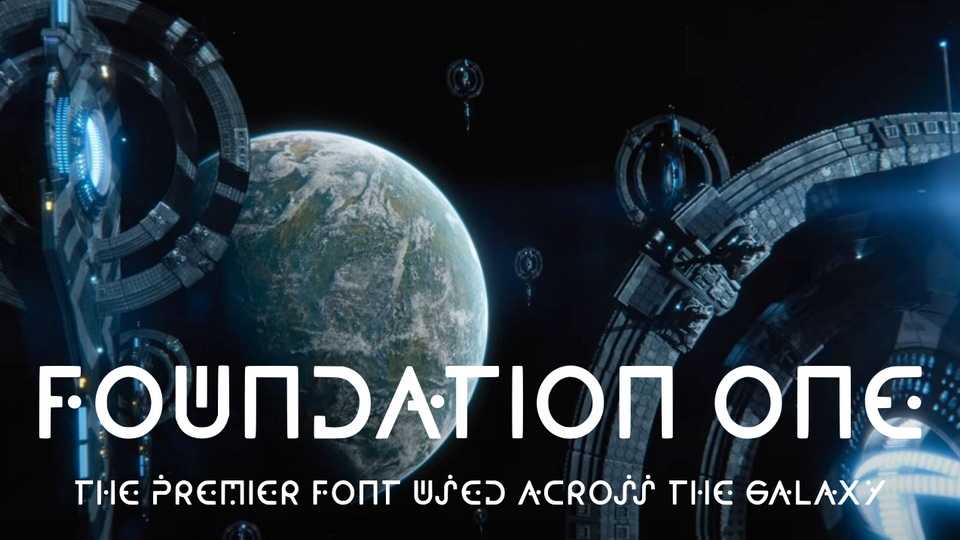
Download Foundation One font, a futuristic display typeface inspired by type design used in Foundation, the Apple TV+ series, to indicate a change in location or time.